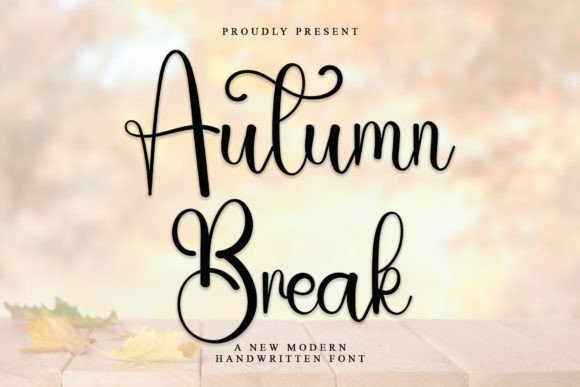
Embracing the Magic of Autumn Break Font
As the leaves change colors and the air fills with the sweet scent of fall, creatives often find themselves in a flurry of inspiration. The cozy atmosphere and vibrant hues of autumn are the perfect catalyst for a new project or design concept. And for those seeking the perfect font to capture the essence of this magical season, we have just the thing – Autumn Break Font.
Masterfully designed to evoke a sense of classic elegance while feeling refreshingly modern, Autumn Break Font is the ultimate addition to any designer’s toolkit. Whether you’re crafting a wedding invitation, a seasonal greeting, or a social media campaign, this exquisite handwritten font is sure to elevate your projects to new heights.
With its unique blend of calligraphic flair and contemporary charm, Autumn Break Font is a valuable asset for any designer looking to add a touch of sophistication and personality to their work. So why settle for a generic font when you can fall in love with the Autumn Break Font and take your designs to new levels of creativity and style?
Autumn Break Font Key Features
- Unique Characteristics: The font features a unique blend of modern and vintage elements, with intricate details and ornaments that evoke a sense of nostalgia and elegance.
- Font Style: The font is available in both regular and bold weights, allowing users to create a range of visual effects and emphasize specific text elements.
Designer Review: Autumn Break Font
Overall, I’m impressed with the Autumn Break Font. It has a certain charm to it that’s perfect for seasonal or nature-inspired designs. Here are some of the things that work well:
- ✨ The unique, handwritten feel of the font is a major selling point. It’s perfect for creating a cozy, autumnal atmosphere.
- ✨ The font has a good range of weights and styles, making it easy to use in different contexts.
- ✨ The font is highly legible, even at smaller sizes, which is a must for any font.
- ⚠️ The font may be too playful or whimsical for some designs, particularly those that require a more serious tone.
- ⚠️ Some of the letterforms may be a bit too ornate or flourished, which can make them difficult to read at very small sizes.
Overall, I think the Autumn Break Font is a great addition to any designer’s toolkit. While it may not be suitable for every project, it’s perfect for creating seasonal or nature-inspired designs. With its unique feel and good range of styles, it’s definitely worth considering for your next project.
For the most effective use of Autumn Break Font, use it in conjunction with earthy colors and natural imagery. This font is perfect for creating designs related to fall, such as harvest-themed invitations or autumnal landscape photography. It’s also great for adding a rustic touch to your designs.